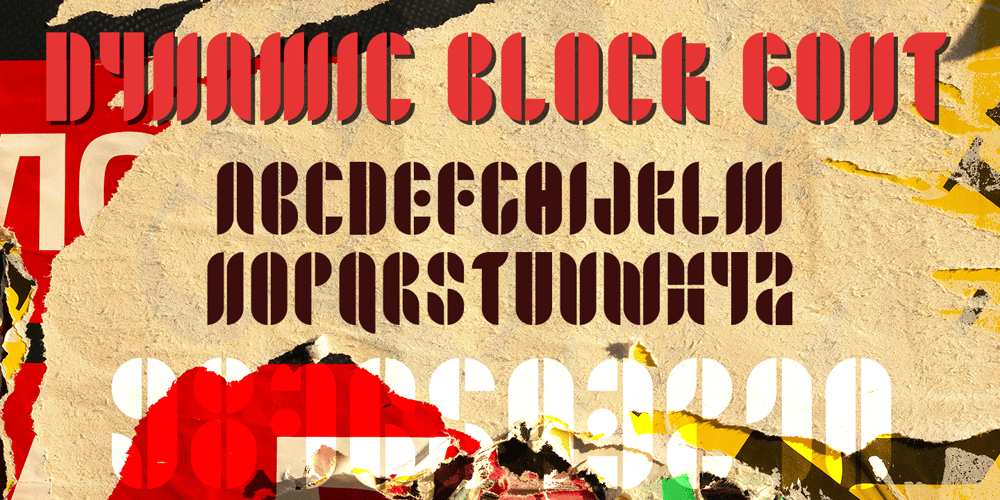
Dynamic Block Font Family was designed by Roberto Sofi and published by Biroakakarati. Dynamic Block contains 1 styles and family package options. This is a block font style really dynamic. The blocks have a good harmony between them, every letter have the same width, this is comfortable when work on poster or on a big text. The rounded final of letter give a dynamic effect than a square final.